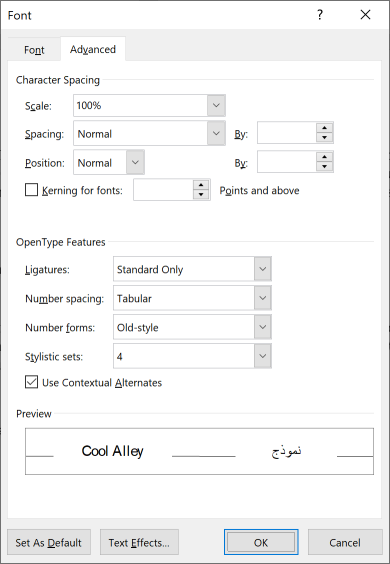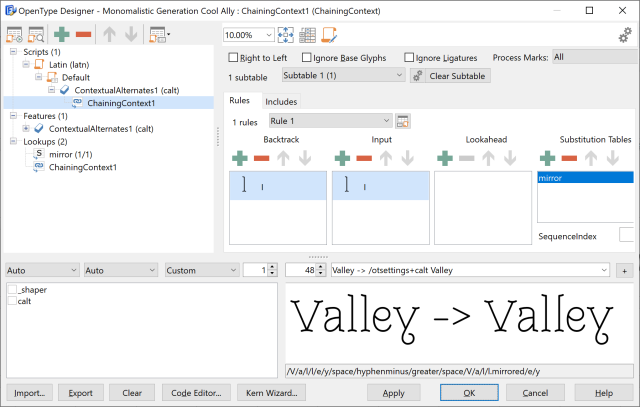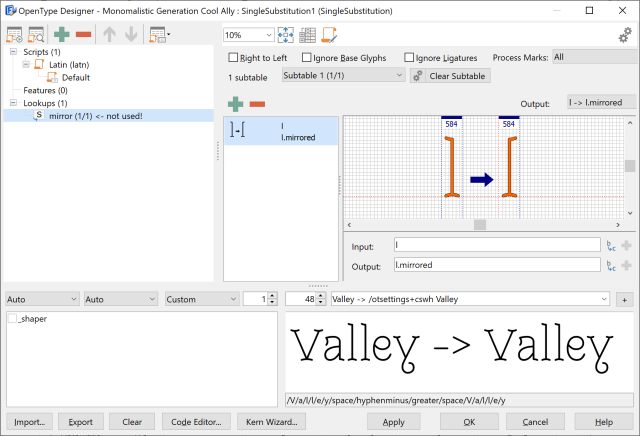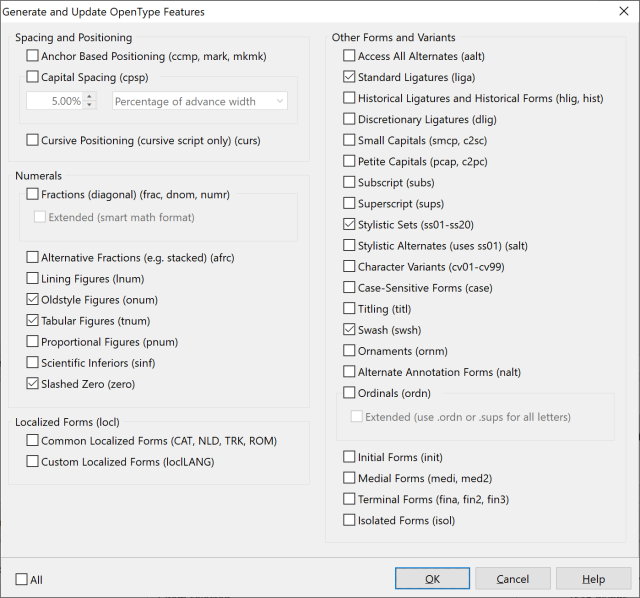
Enrich Your Fonts with OpenType Features
A font can be so much more than just a bunch of characters. To enrich your fonts with OpenType features you add gems like swashes, ligatures, and stylistic sets — and in this font editor most of them are generated for you, automatically, from the names you give your glyphs. This tutorial is not about using fonts; it's about how font designers add these layout features, which can add a real boost to your font's appeal.
Nowadays all professional fonts come with OpenType layout features. We'll cover the most common and popular substitution features:
• Standard Ligatures
• Stylistic Sets
• Slashed Zero
• Alternate Figures
• Swashes
• Contextual Alternates
These features all substitute one or more characters with a replacement. We won't discuss positioning features (kerning and mark attachment) here — those are covered in the spacing, kerning, and anchors tutorials.
With FontCreator, every feature on the list except contextual alternates can be added automatically. The one thing you have to get right is glyph naming: add the extra glyphs and name them according to FontCreator's glyph name convention. The feature generator reads those names and their suffixes to decide which lookups to build.
Generate features from glyph names
The whole workflow hinges on one idea: a variant glyph carries the name of the original character plus a feature suffix. A stylistic-set-4 variant of g is named g.ss04; a swash A is A.swsh; an old-style zero is zero.onum. FontCreator scans for these suffixes and wires up the right lookups in the right features.
To run the generator:
1. Open the OpenType Designer (from the font's toolbar or menu).
2. Click the first icon in the upper-left corner (Generate features) to open the Generate and Update OpenType Features window.
3. Tick the features you want to generate and/or update, and click OK.
FontCreator OpenType Designer feature-generation dialog listing OpenType layout features to generate or update.
The Generate and Update OpenType Features window with feature checkboxes
Note: Generated lookups and classes are named with a script prefix — for example latn_liga for standard Latin ligatures. Greek and Cyrillic characters are grouped with Latin (latn). Unless noted otherwise, automatic generation is limited to Latin, Greek, and Cyrillic scripts.
Watch out: When you update features, the existing generated lookups and classes are deleted and rebuilt. If you write custom features by hand, keep them separate from the generated ones so an update doesn't wipe your work.
Below are the glyph names required per feature.
Standard Ligatures (liga)
Use this feature for letter combinations that look better as a single custom-designed glyph, such as fi, fl, and ffl. They improve the appearance of letters that would otherwise overlap. Applications process liga by default, but the user can switch it off.
A custom fi ligature compared with the separate letters f and i in FontCreator.
A standard fi ligature shown next to the separate f and i
FontCreator instructions: the common ligatures (ff, fi, fl, ffi, ffl) are detected automatically, so you don't have to do anything for those. To add an extra ligature, use the ligature name convention with a .liga suffix. For a three-character ligature of "f f b", name the glyph f_f_b.liga.
Note: If a ligature should be formed all the time and not be switchable by the user, define it in the Required Ligatures (rlig) feature instead of liga.
Stylistic Sets (ss01–ss20)
There are 20 stylistic-set features. Each holds a set of stylistic variant glyphs for part of the character set — for example closed alternatives for open letters.
Default letterforms next to stylistic-set variants in a FontCreator font.
A row of letters shown in their default and stylistic-set variants
FontCreator instructions: give the variant the name of the original character plus the matching set suffix. A variant of g for stylistic set 4 is named g.ss04. FontCreator also supports feature parameters for stylistic sets, so you can give each set a friendly name that shows up in applications.
Tip: Stylistic Alternates (salt) links to the same lookup as stylistic set 01, so a .ss01 set automatically feeds salt too. Add .salt glyphs only if you want an additional, separate alternates lookup.
Slashed Zero (zero)
This one is easy — it needs a single extra glyph. It lets the user replace the default zero with an alternative form, typically with a diagonal slash through the counter so 0 (zero) is easy to tell apart from O (capital O).
Why did my custom feature code vanish after I regenerated features? Updating generated features deletes and rebuilds the generated lookups and classes. Always keep features you write by hand separate from the generated set so an update can't overwrite them.
Do these features work in every application? No. Illustrator, InDesign, CorelDRAW and Affinity Designer support all the substitutions shown here; Word 2010+ supports most but not slashed zero or swashes. Always test and document where your features work.